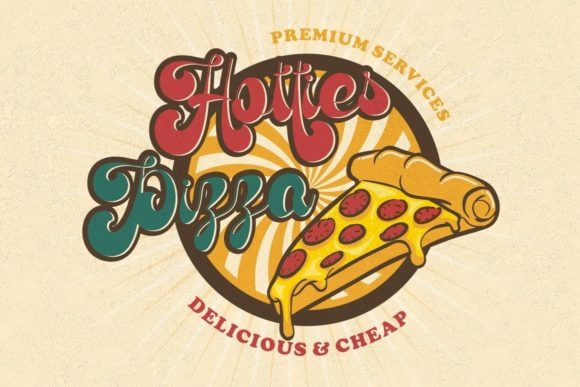
Antique Vignette Font
Antique Vignette Font is a quirky vintage script font. The perfect combination of vintage/groovy style with classic lettering. So this font is suitable for your projects with vintage/retro/groovy themes. In addition, this font is also suitable for logos, branding, lettering, badges/emblems, quotes, posters, SVG, book titles, packaging, t-shirts/apparel, and others.